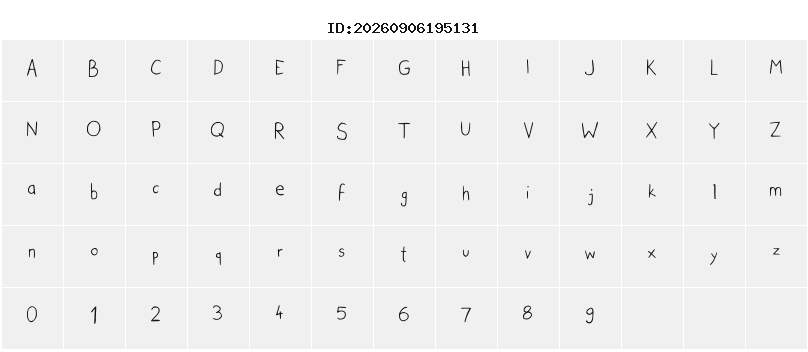
urban anxiety Preview
About urban anxiety.ttf
urban anxiety.ttf is a modern, elegant sans-serif font designed for ultimate readability and visual harmony. Perfect for branding, headlines, web design, and print materials.